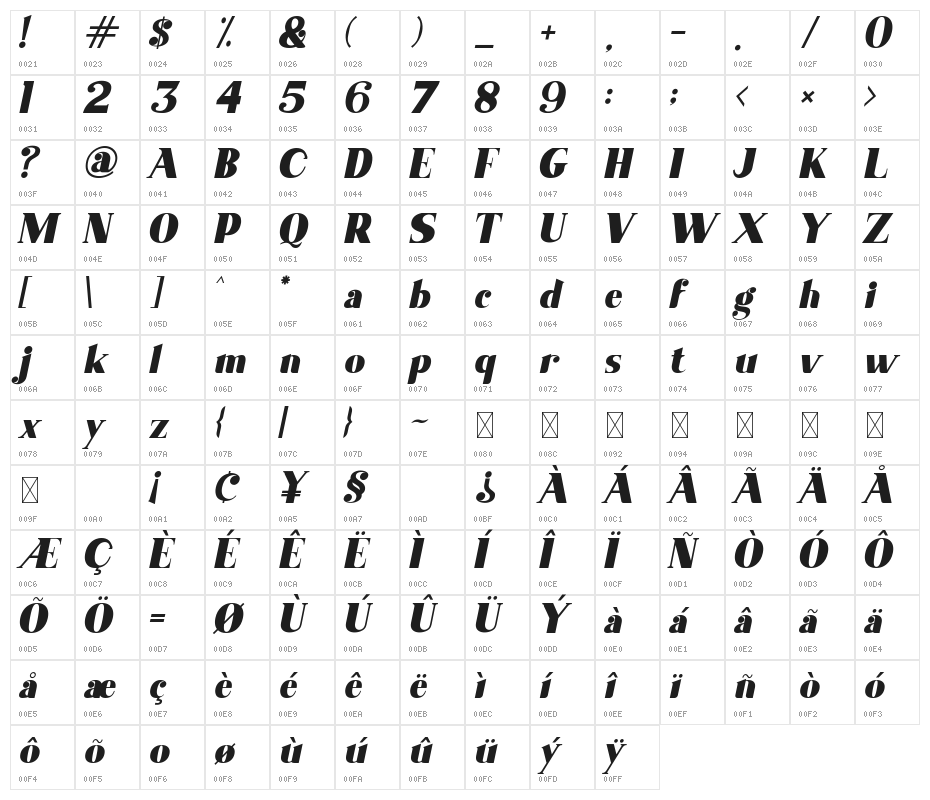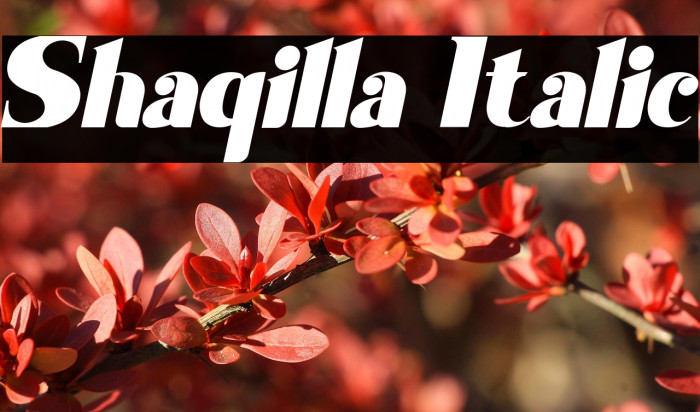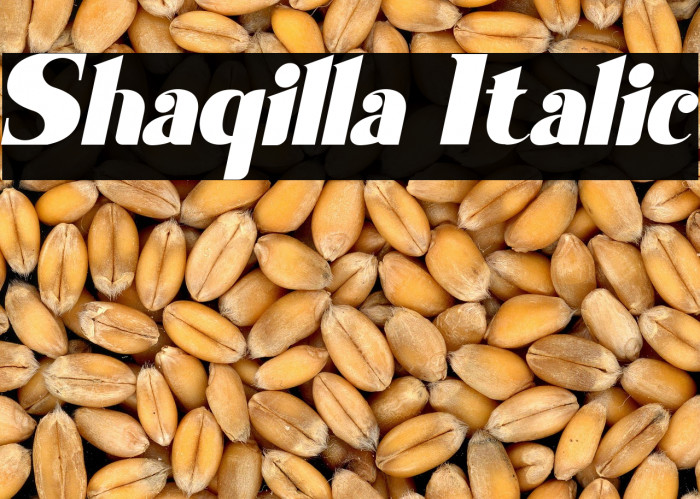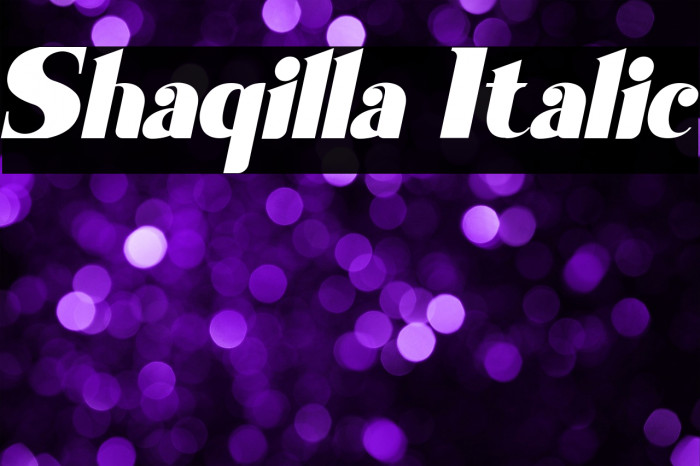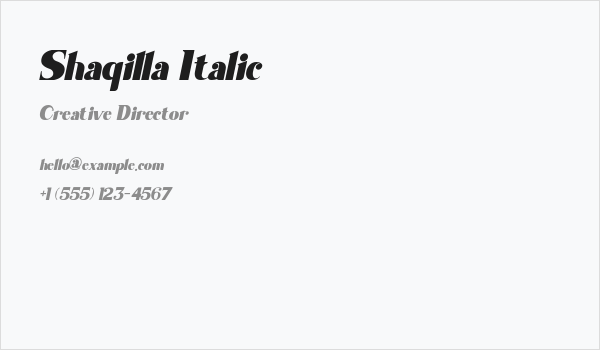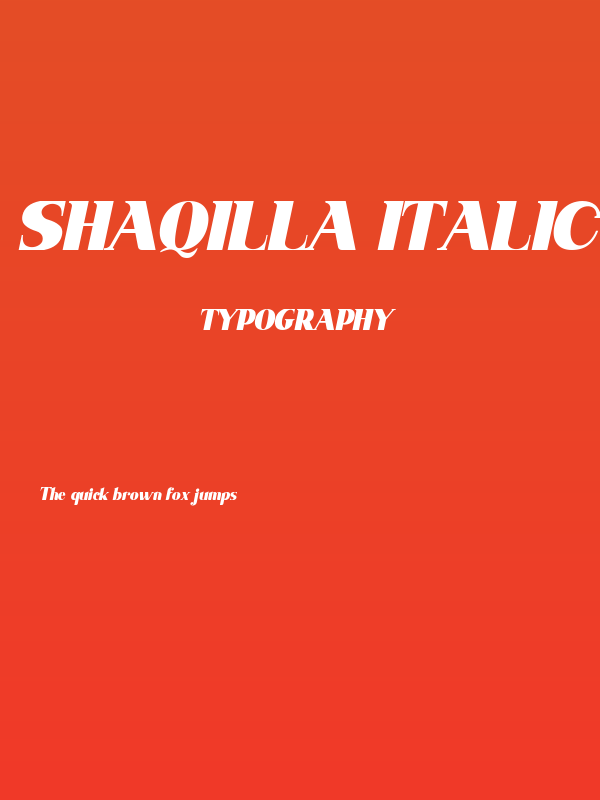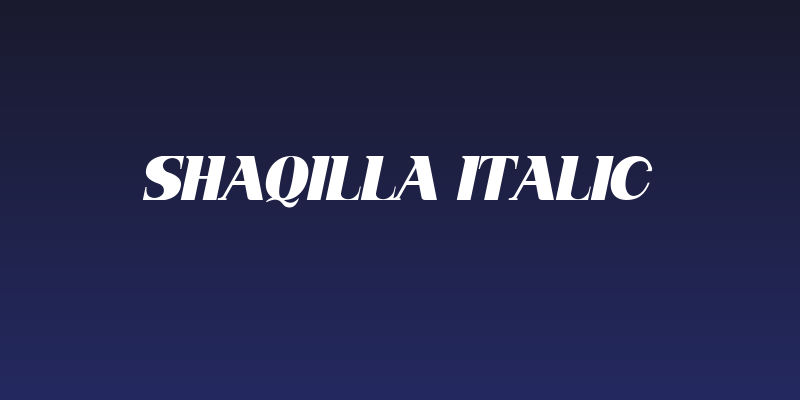
Shaqilla Italic Font
Shaqilla Italic Description
This font exhibits a bold and dynamic italic style, characterized by its strong, slanted letterforms that convey a sense of movement and elegance. The uppercase letters are particularly striking, with a pronounced forward lean and thick strokes that create a powerful visual impact. The lowercase letters maintain this dynamic quality, with smooth curves and consistent stroke widths that enhance readability. The numerals are equally bold, ensuring they stand out in any context. Special characters are designed with the same attention to detail, integrating seamlessly with the overall aesthetic. This font's high contrast between thick and thin strokes adds to its dramatic appearance, making it suitable for attention-grabbing designs.
| Proposed Projects | Ideal for branding, headlines, posters, and any design requiring a bold, elegant touch. |